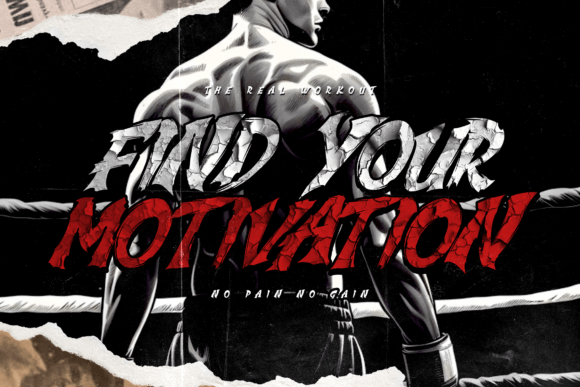
Dragon Striker Font
Dragon Striker is a horror-themed marker with a Y2K-inspired brush design. It features bold, striking details that evoke a sense of fear and mystery, combining a futuristic edge with classic horror elements. Perfect for adding intense, dramatic effects to your artwork.